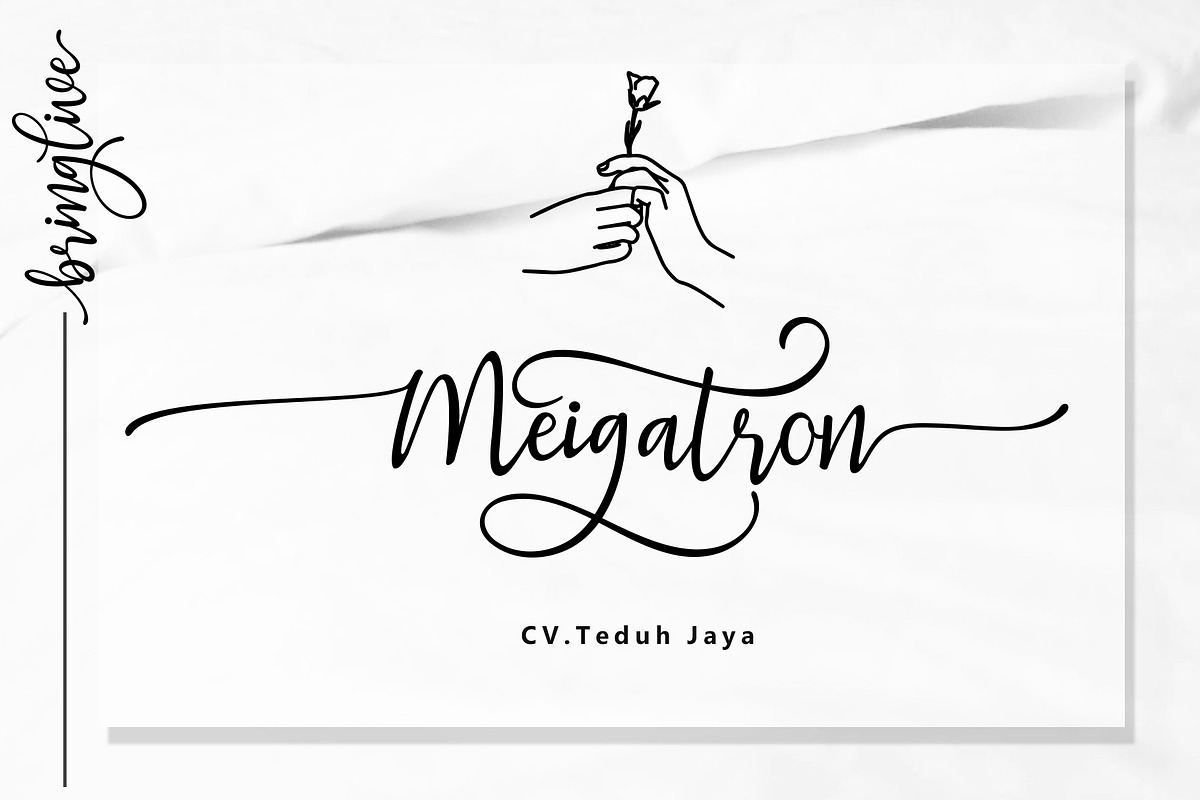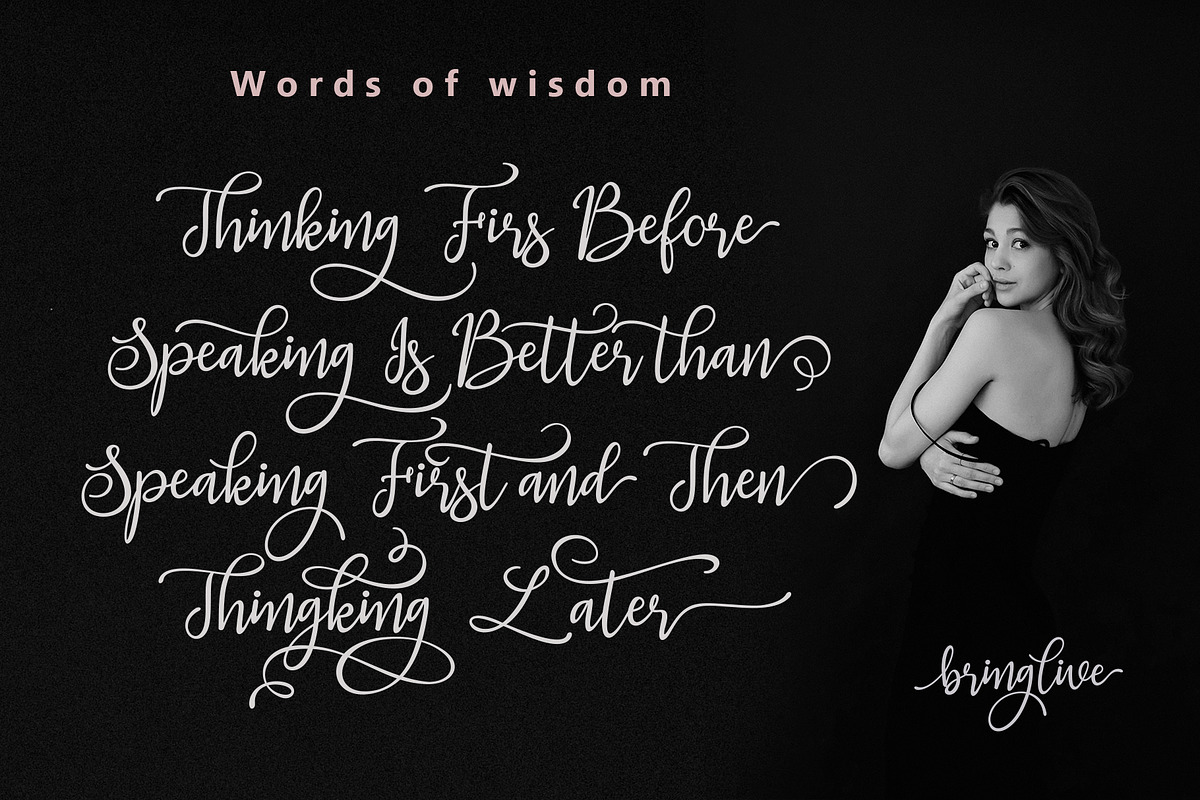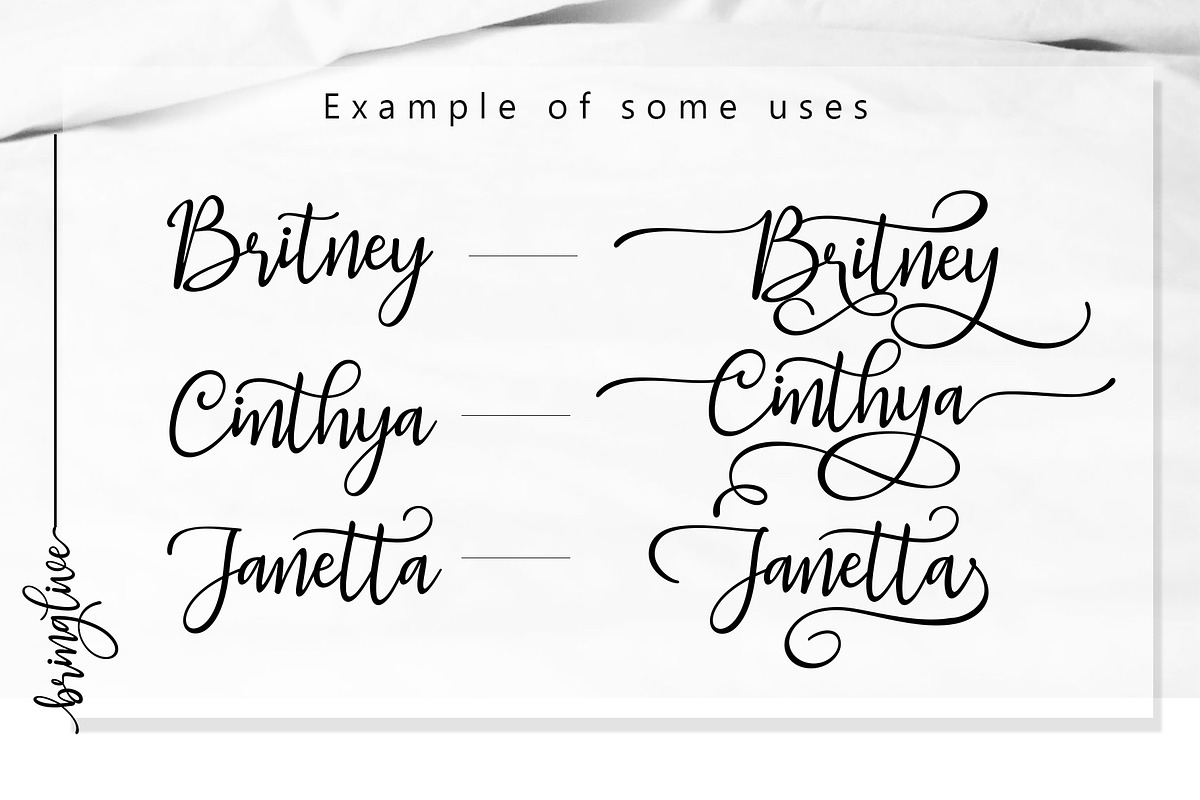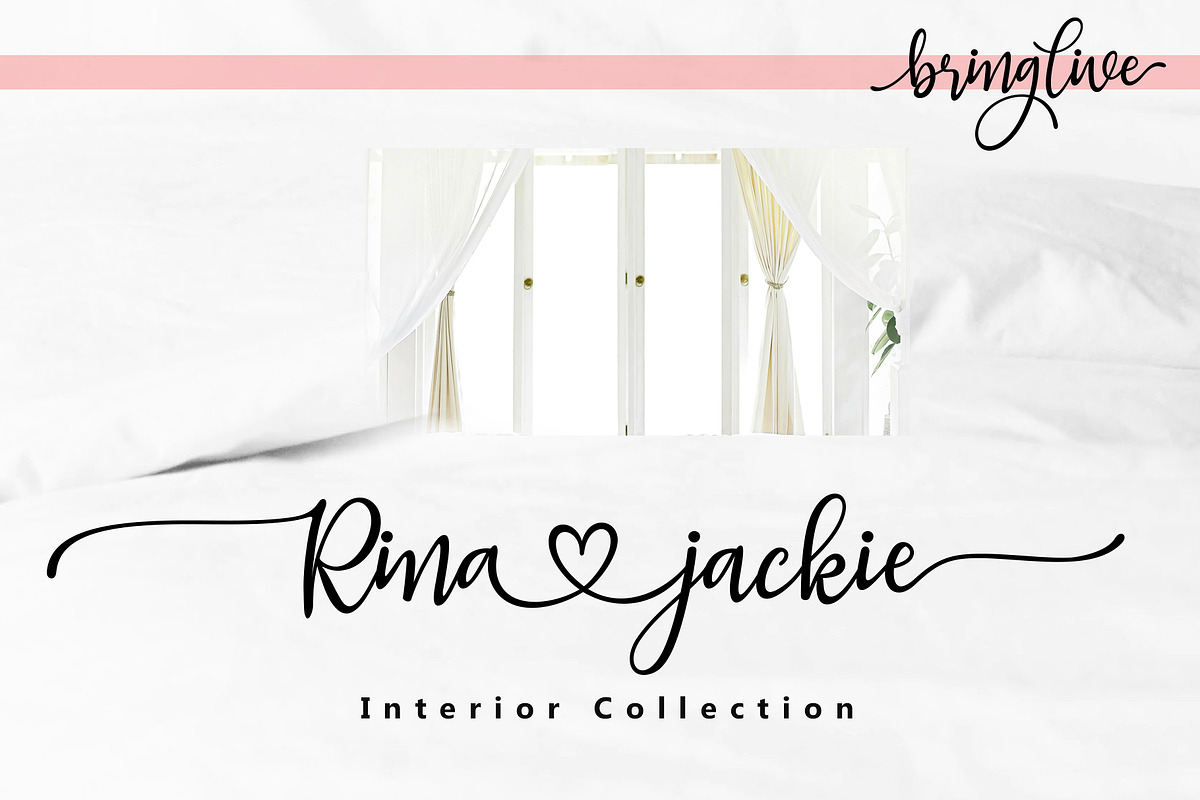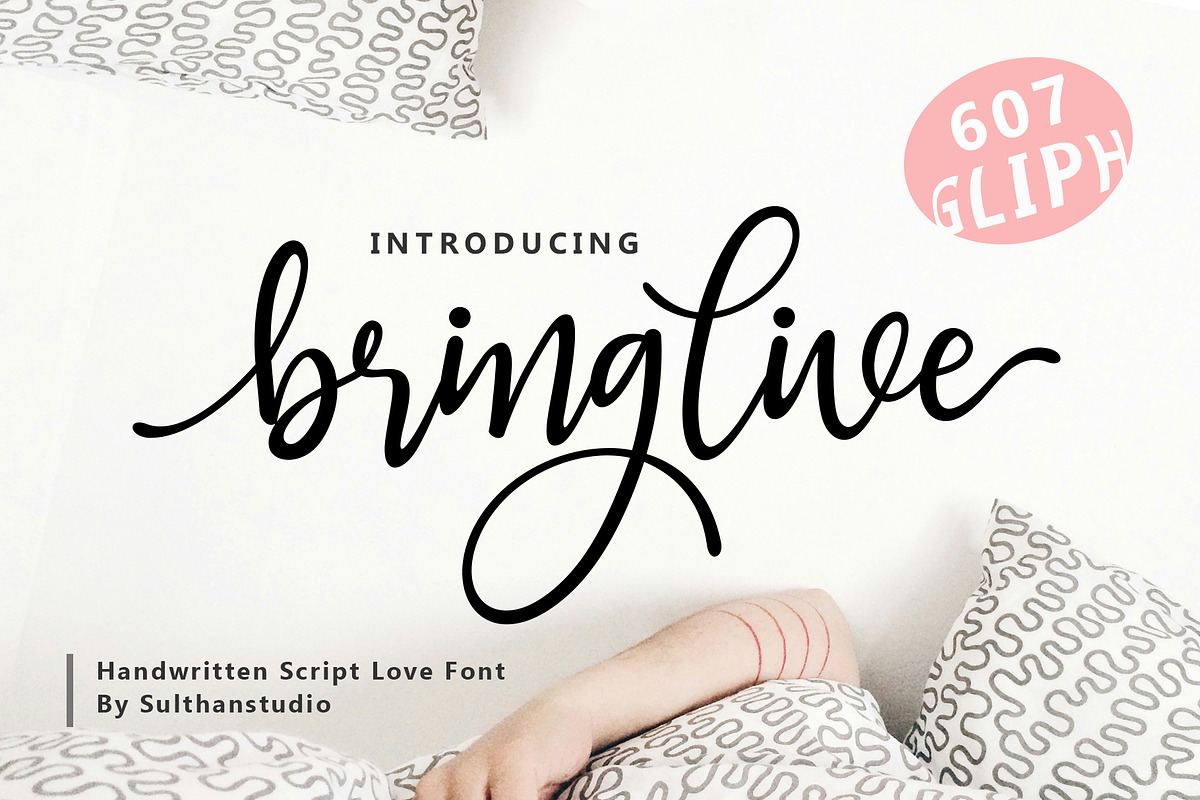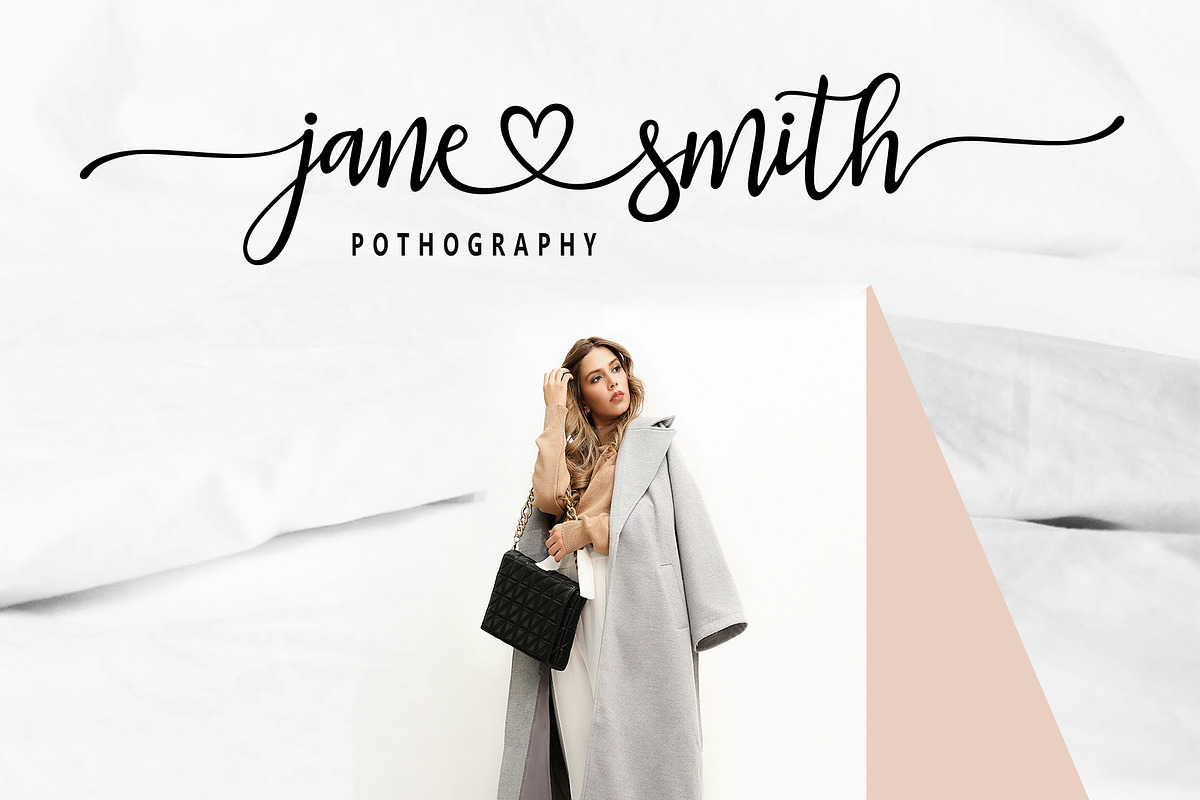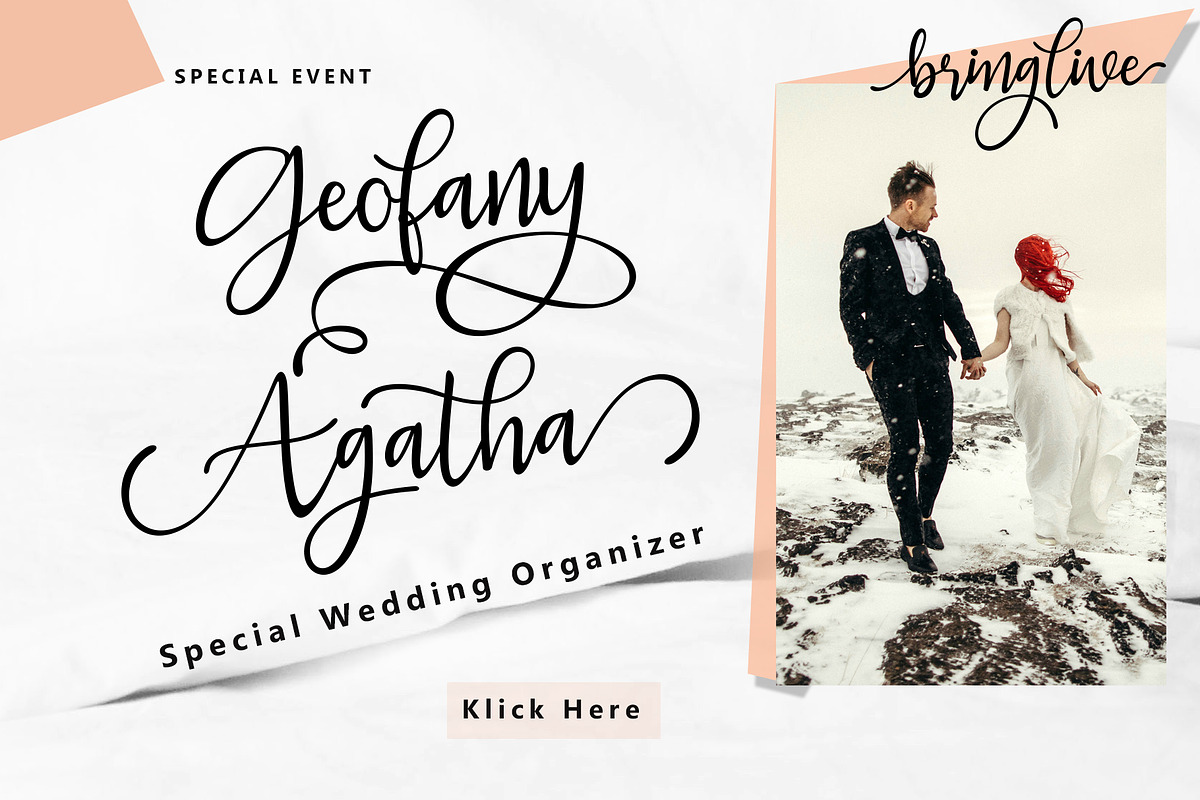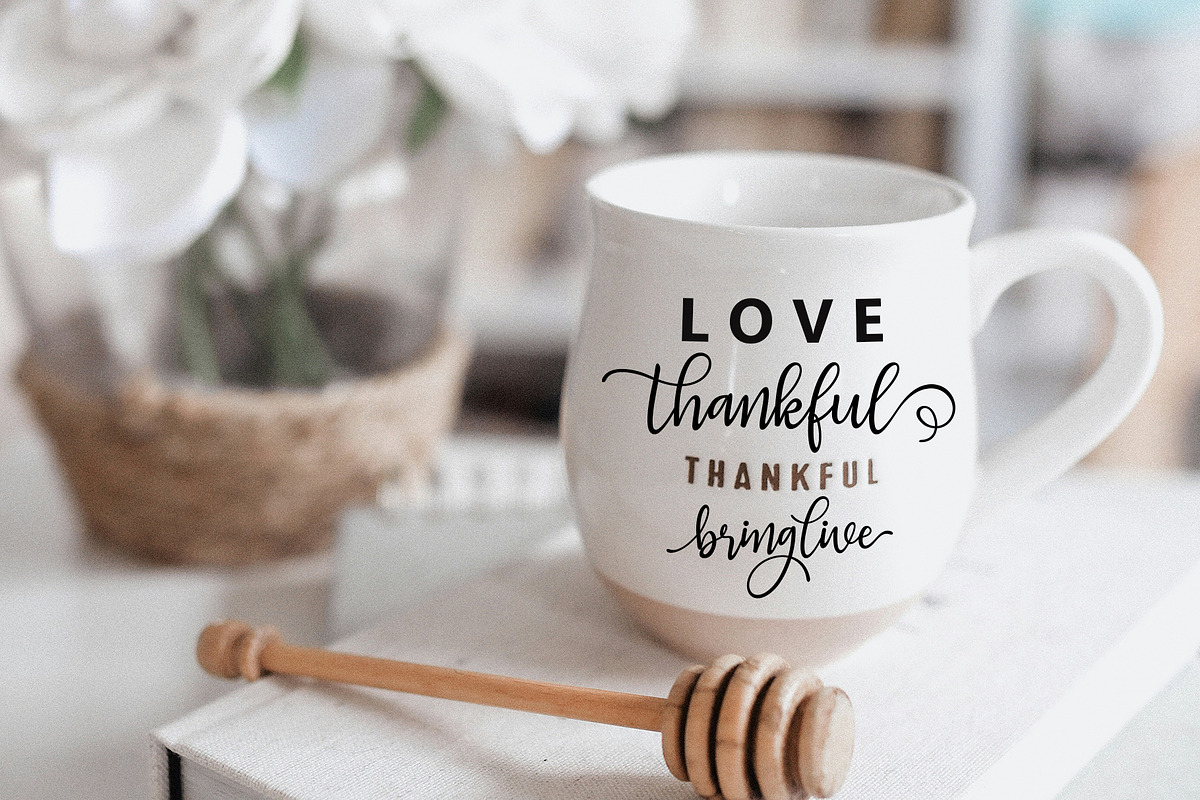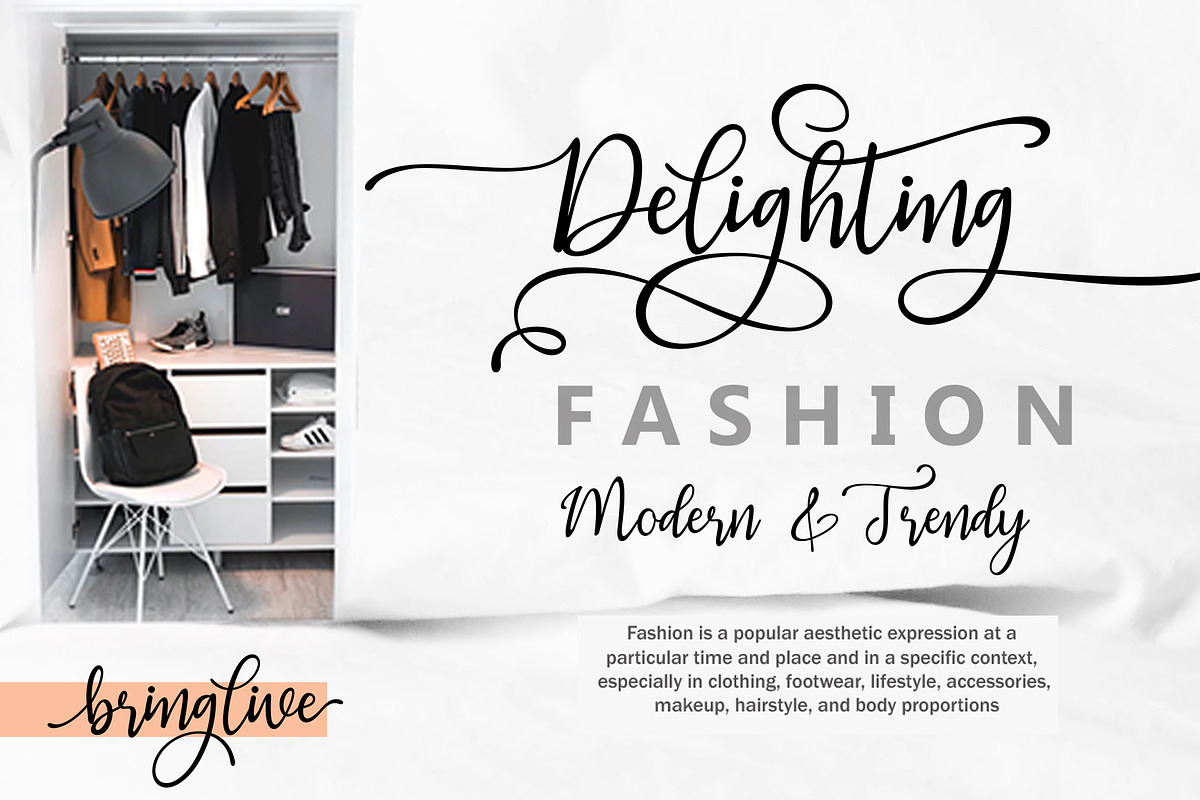
Bring live
I created this extraordinary handwritten font with a happy and enthusiastic heart, of course so that it is the best and most attractive for every job you are working on. This font with a very charming style can be used anywhere in your project, such as advertising, branding, graphic design, quotes, wedding designs, logos for online or offline businesses, photography, and others. Make your business more beautiful!
This font has 607 glyphs equipped with uppercase letters, lowercase letters, numbers, punctuation, swashes, ligatures, alternative language support and has also been coded with PUA.